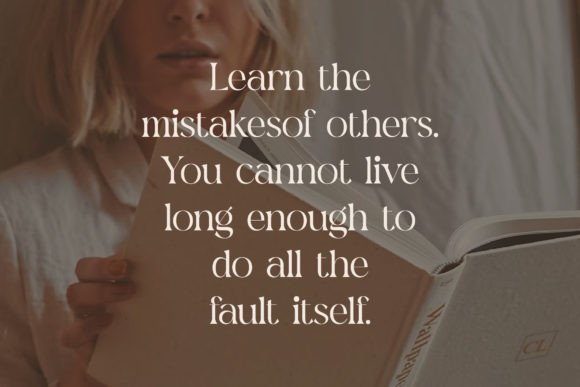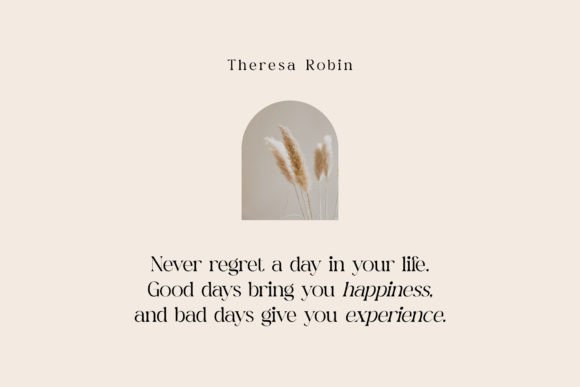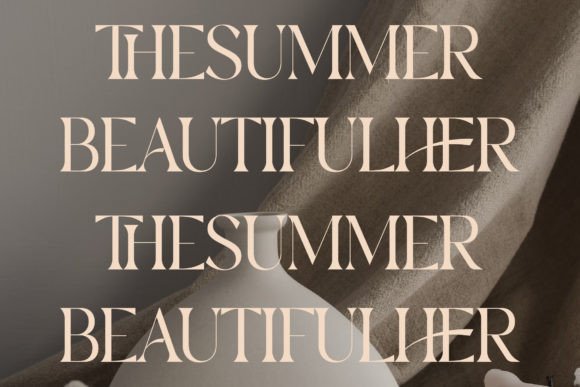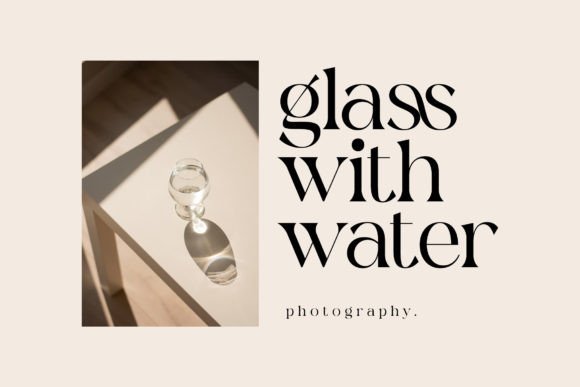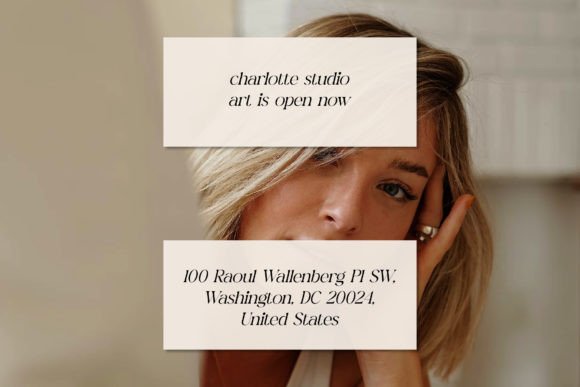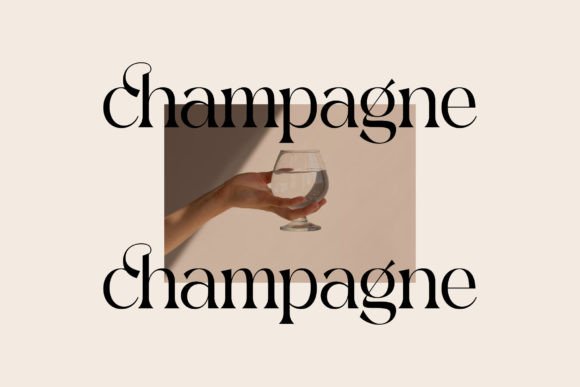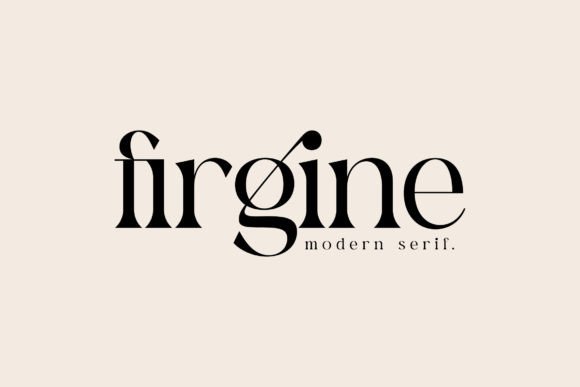
Firgine Font: Elevate Your Designs with Elegance and Sophistication
In the world of typography, a font can make or break a design. For designers and crafters looking to add a touch of elegance and luxury to their projects, Firgine Font is an excellent choice. This classic serif font boasts a unique style and modern look, making it perfect for a wide range of applications, from logos and titles to fashion brands and magazines.
The Versatility of Firgine Font
Firgine Font is a versatile typeface that can be used in various creative projects. Its classic serif design makes it ideal for:
- Elegant and luxury logos: Add a touch of sophistication to your brand’s logo with Firgine Font’s elegant and refined design.
- Book or movie title design: Create eye-catching titles for your book or movie with Firgine Font’s unique style and modern look.
- Fashion brands: Elevate your fashion brand’s visual identity with Firgine Font’s luxurious and elegant design.
- Magazines: Use Firgine Font to add a touch of sophistication to your magazine’s title pages, headings, and body text.
- Clothes: Create stylish and eye-catching labels, tags, and packaging for your clothing brand with Firgine Font.
- Lettering: Use Firgine Font to create beautiful and elegant lettering for your artwork, signs, or posters.
- Quotes: Add a touch of elegance to your quotes and sayings with Firgine Font’s refined design.
- Access a wide range of glyphs: Firgine Font comes with a variety of glyphs, including ligatures, alternates, and swashes, which can be accessed easily using PUA encoding.
Why Choose Firgine Font?
Firgine Font is an excellent choice for designers and crafters looking to add a touch of elegance and sophistication to their projects. Here are some reasons why:
- Unique style and modern look: Firgine Font boasts a unique style and modern look that sets it apart from other serif fonts.
- High-quality design: The font is designed with high-quality craftsmanship, ensuring that it looks great in any design.
- Versatility: The font can be used in a wide range of applications, making it a great addition to any designer’s toolkit.
- Classic serif font with a unique style and modern look
- Perfect for elegant and luxury logos, book or movie title design, fashion brands, magazines, clothes, lettering, quotes, and more
- High-quality design with ease of use
- Versatile and suitable for a wide range of applications